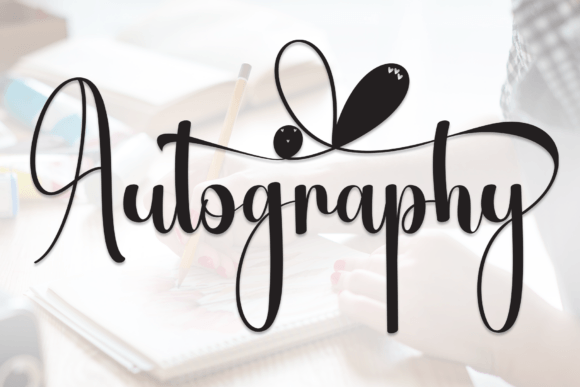
Meet the Font that Will Make Your Designs Shine
Have you ever been sipping coffee, surrounded by scribbled notes and scattered ideas, and suddenly you stumble upon the perfect font to bring your design to life? That’s exactly what happened to us when we discovered the enchanting Autography Font. This delightful handwritten display font effortlessly merges sweetness and friendliness into every curve and line, making it the perfect accomplice for scribing wedding invitations, crafting cards, or infusing any design project with an uninhibited touch of fun.
As a designer, you know how difficult it can be to find the right font to convey your message. But with the Autography Font, you can rest assured that your designs will be infused with an endearing charm and lighthearted aesthetic that’s sure to capture the hearts of your audience.
Autography Font Key Features
- Font Family: Autography Font is a unique, handwritten font family designed to evoke a sense of elegance and sophistication.
- Character Count: The font family includes over 800 characters, including uppercase and lowercase letters, numbers, and punctuation marks.
- Unique Characteristics: Autography Font features a distinctive, hand-written feel, with subtle variations in letterform and stroke width, giving it a unique and personal touch.
Autography Font Review
As a designer, I was excited to dive into Autography Font and see what it has to offer. Here’s my honest review.
- Unique and elegant script font: Autography Font is perfect for those looking for a stylish and sophisticated font for their branding or design projects.
- Highly customizable: With multiple weight options and a wide range of ligatures, Autography Font can be tailored to fit any design style.
- Perfect for invitations and wedding stationery: The elegant and flowing script makes it an excellent choice for creating beautiful and memorable invitations.
- Limited language support: Autography Font may not be compatible with all languages, which could be a concern for designers working on international projects.
- May require additional styling: Depending on the design, Autography Font might need some additional styling to achieve the desired look.
Overall, I was impressed with Autography Font’s unique style and high level of customization. While it may have some limitations, it’s a great choice for designers looking for a stylish and elegant script font. With some additional styling, it can be a real showstopper in any design project.
The Autography Font is commonly used for creative typography, such as:
- Quotes or song lyrics
- Hand-lettering or custom signs
- Titles or headings